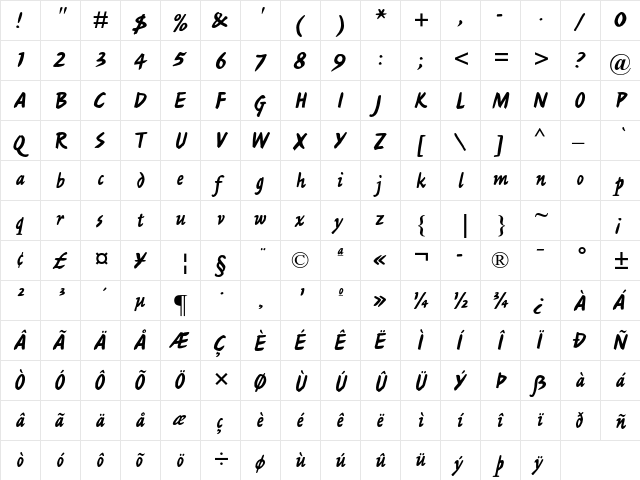
Ashley Script MT Std Regular
| Designer | Ashley Havindon |
Design Context for Ashley Script MT Std Typeface
Ashley Script MT Std flows with the natural rhythm of handwritten lettering, making it ideal for designs that call for warmth and personal expression.
Font Pairing: Combine Ashley Script MT Std with a simple geometric sans for maximum contrast — the tension between flowing curves and clean structure is a classic typographic pairing.
Pro Tip: Pair Ashley Script MT Std with a clean sans-serif for supporting text. The contrast between fluid script and geometric structure creates an elegant typographic hierarchy.